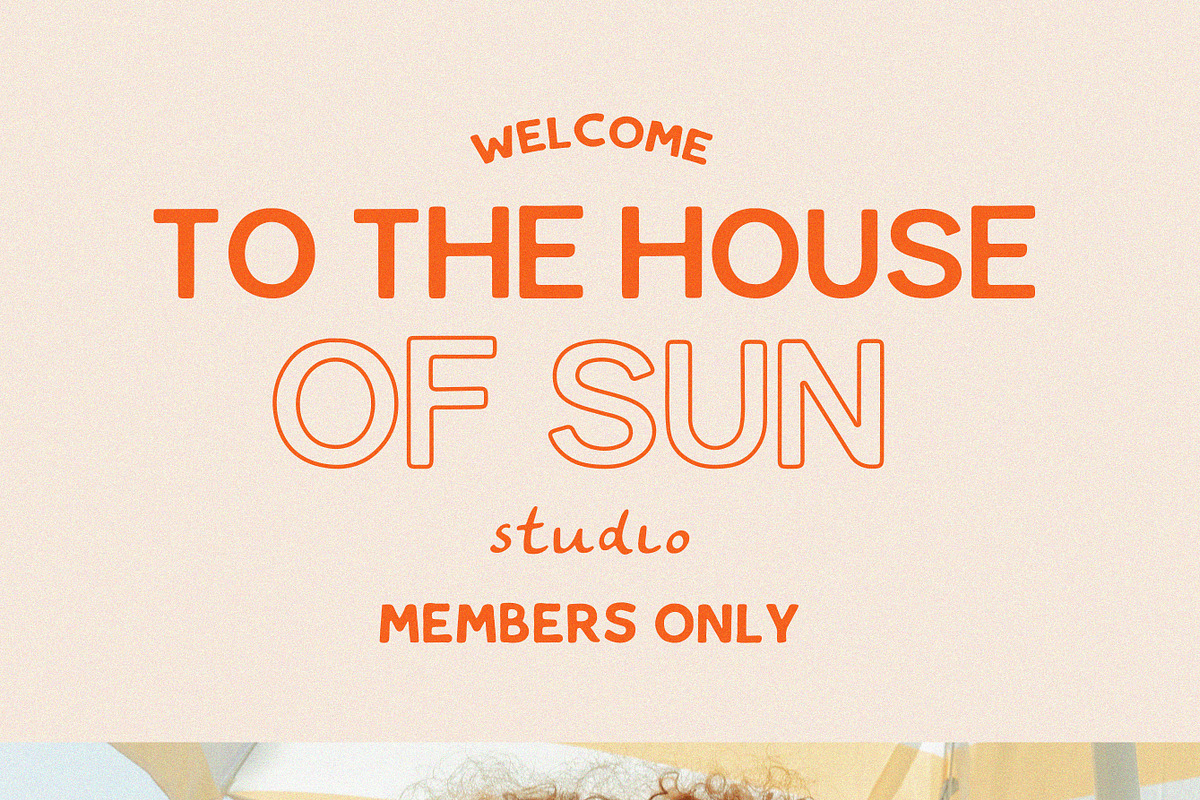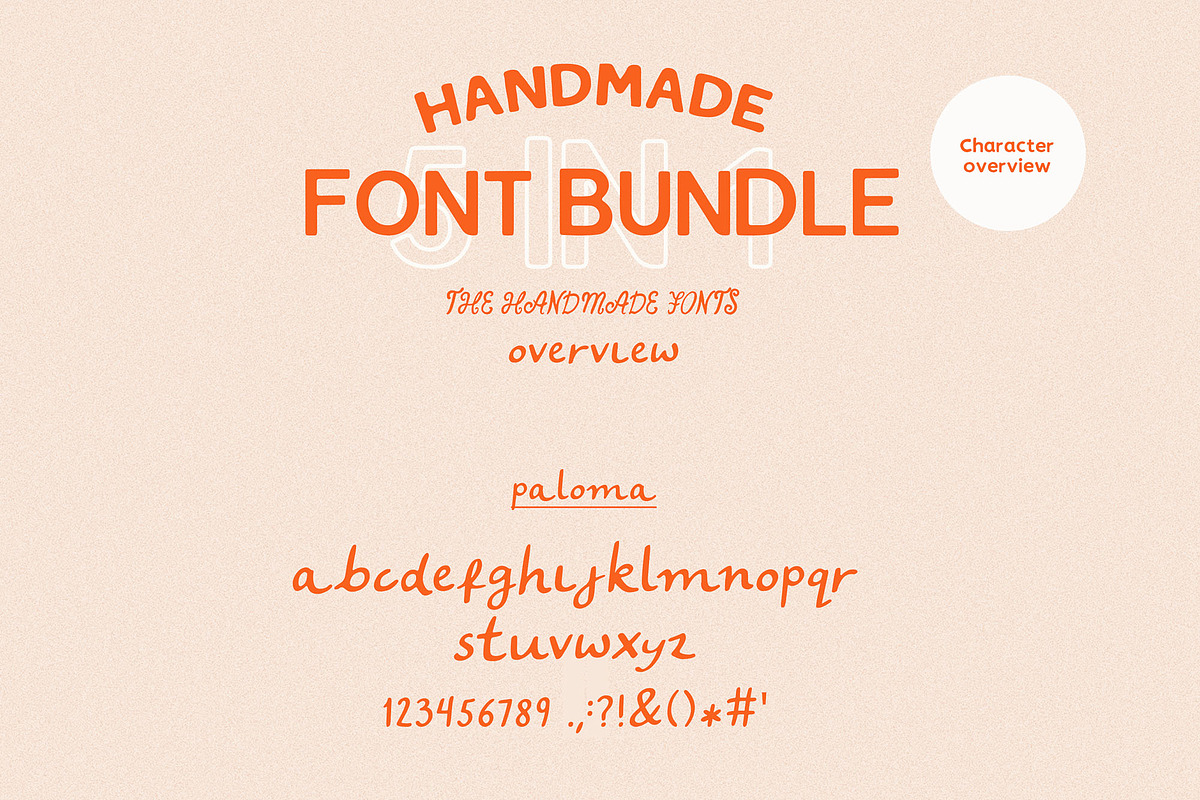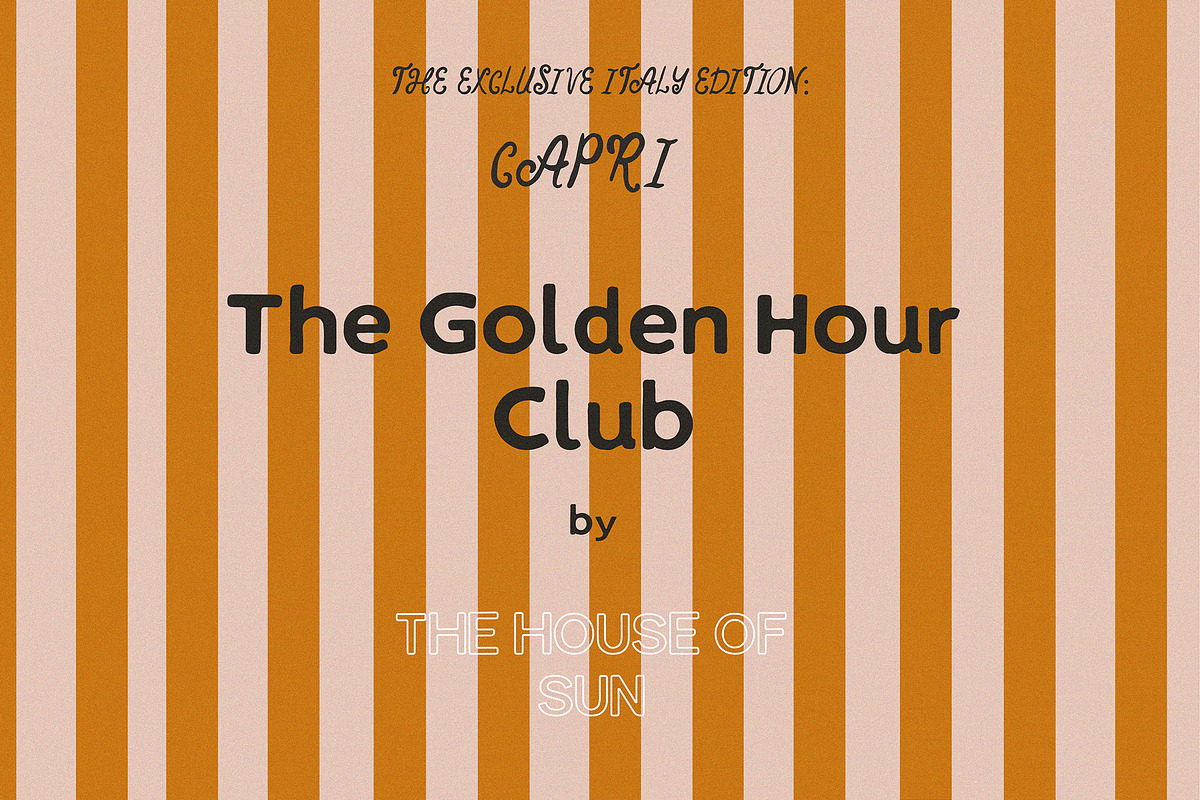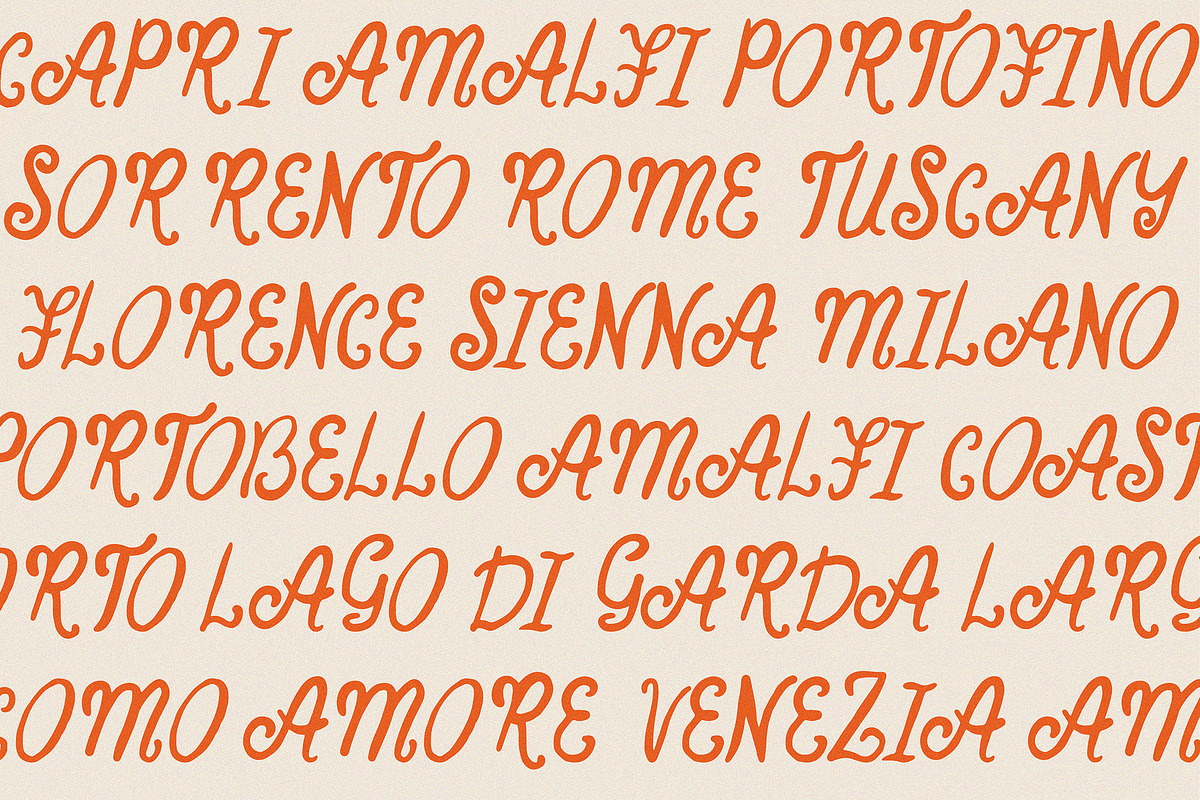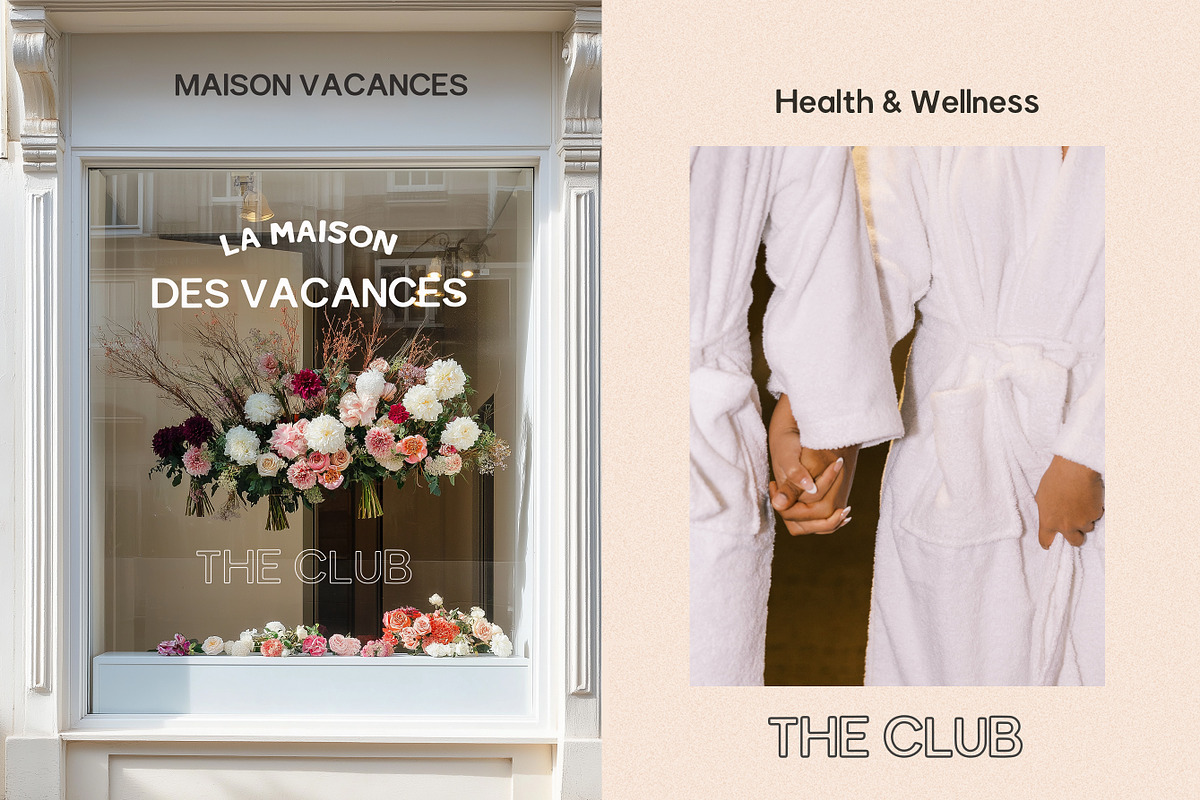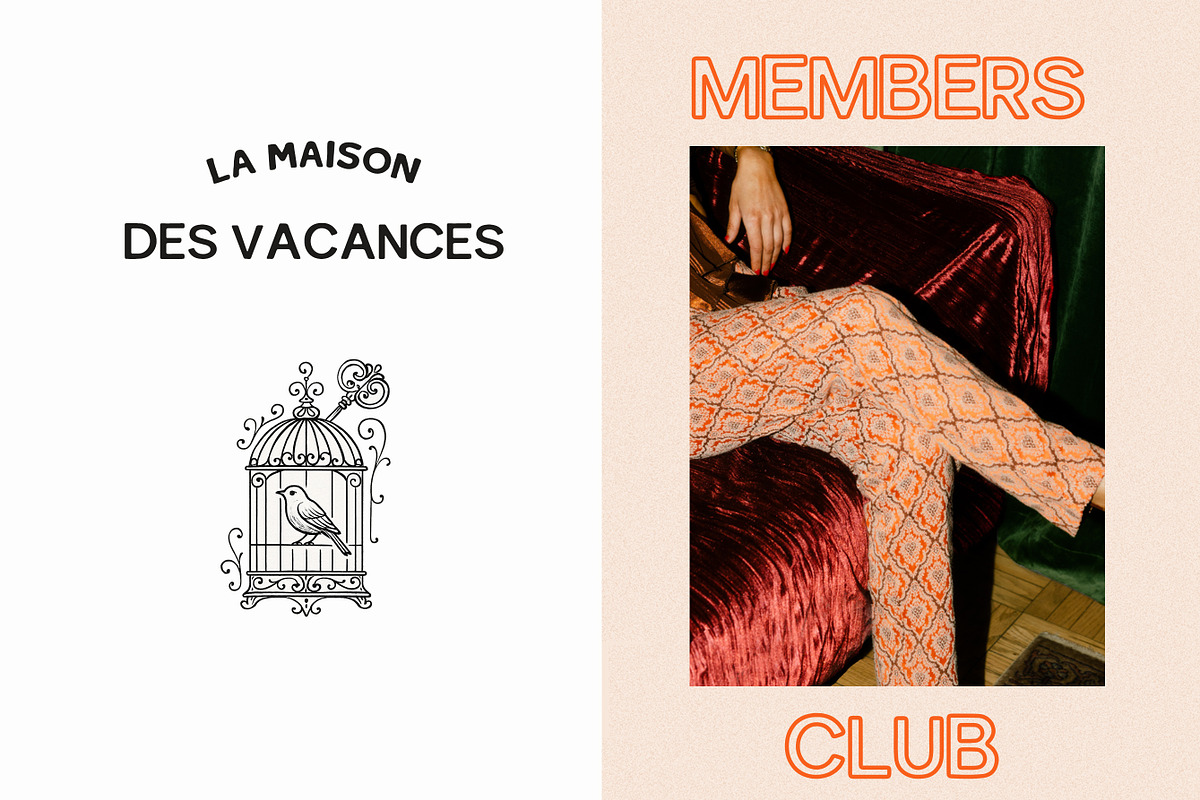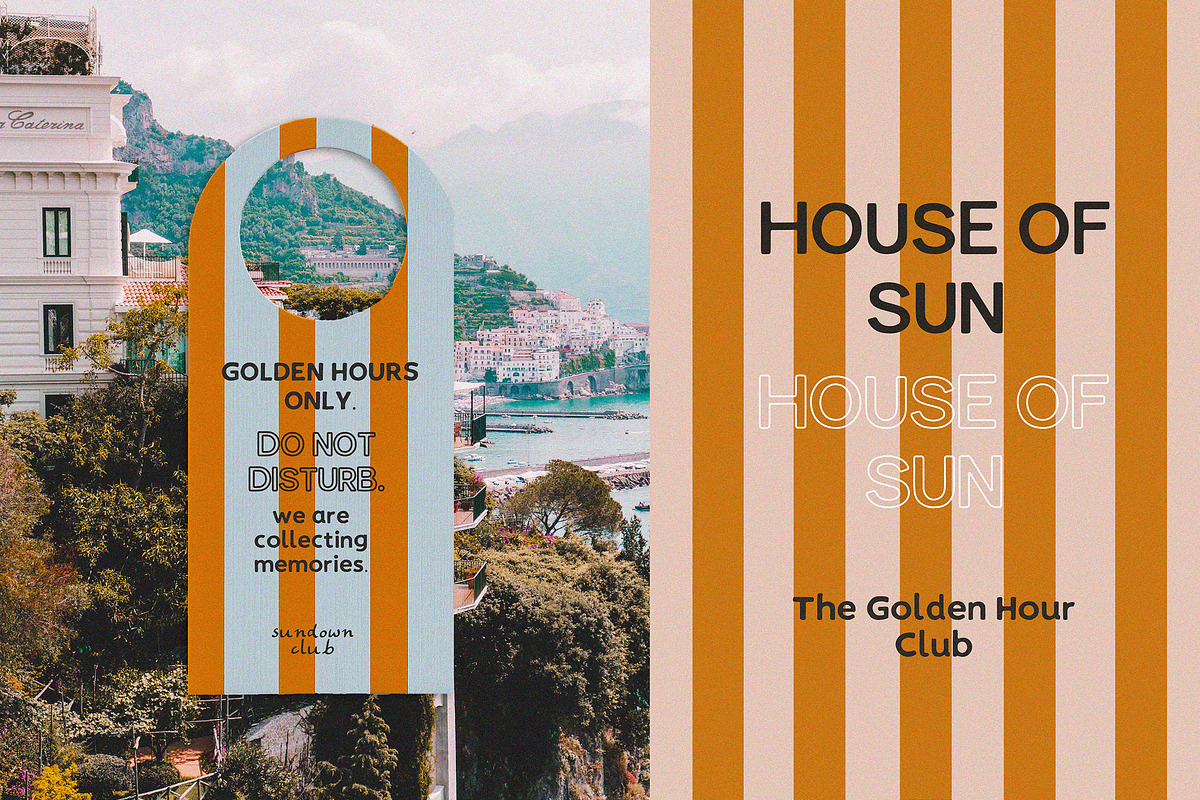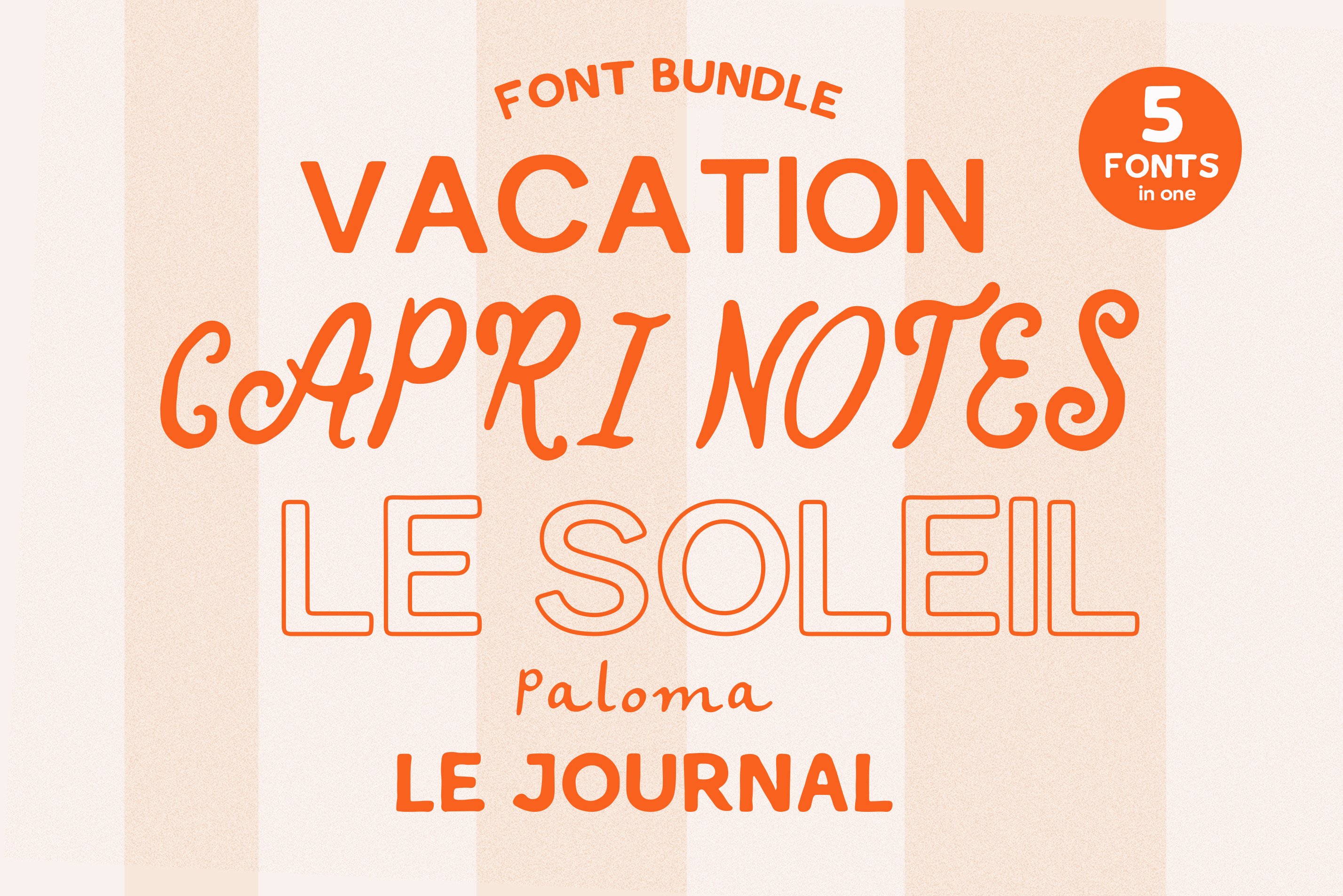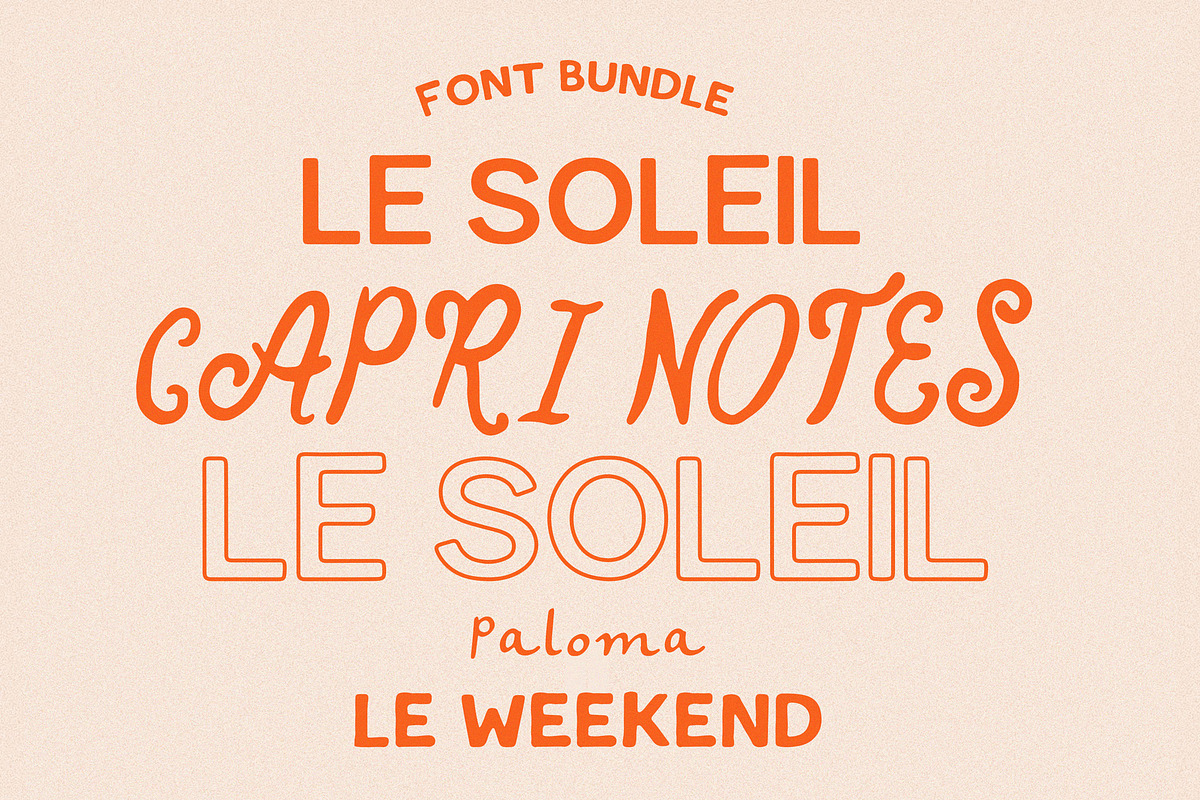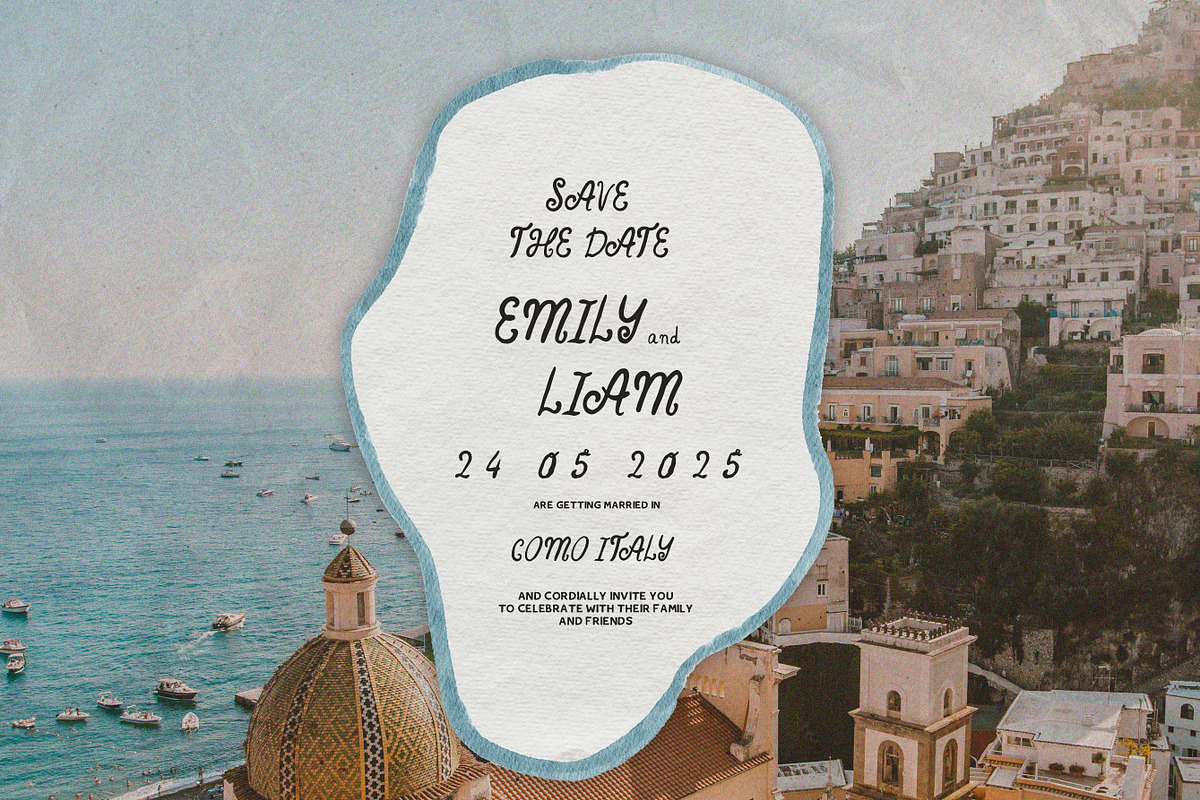
Handwritten Sans Serif & Notes Font
5 Fonts in One for perfect pairings, headlines and refined designs! - This exclusive bundle brings together five fonts, inspired by vintage Summer romance, handwritten postcards, and breezy escapes. From handwritten notes to bold, handcrafted titles, every typeface in this collection was designed to elevate your brand with style and authenticity.
Included are two whimsical scripts with that personal touch of a handwritten postcard, alongside 3 perfectly handcrafted sans serif fonts. While 'Club Soleil' comes with cleaner lines, 'Le Journal' has that extra handcrafted sans serif finish. Last but not least, there is an outlined version included, bringing more retro coastal vibes.